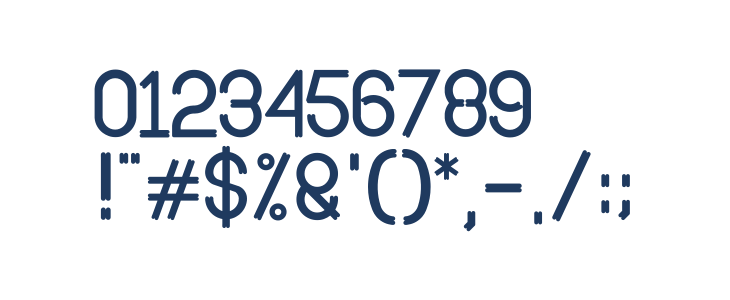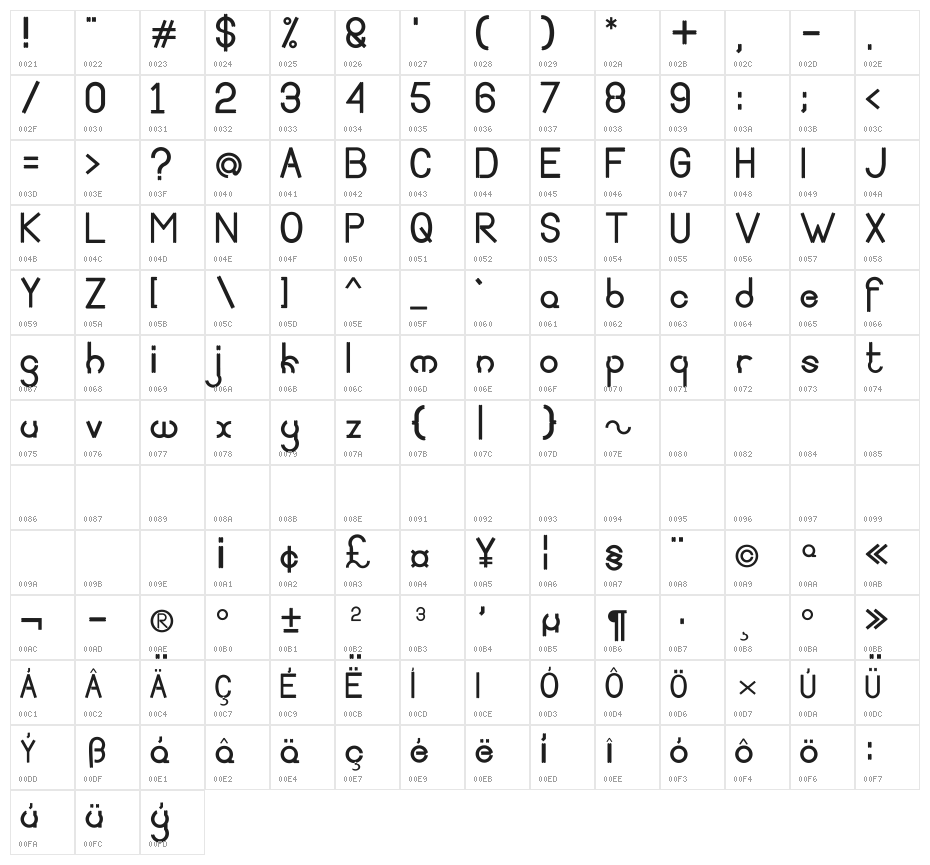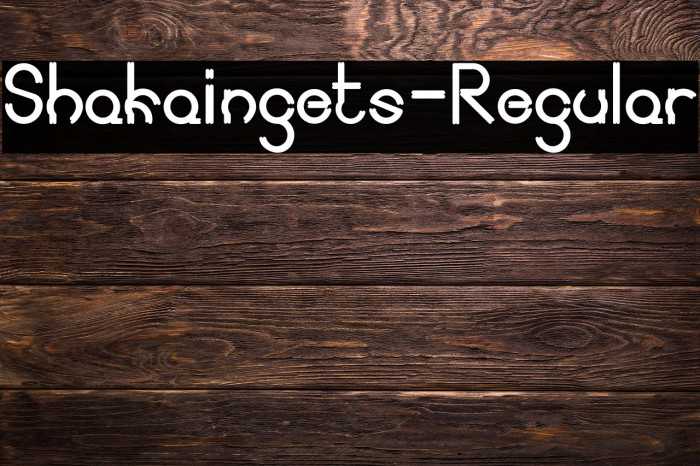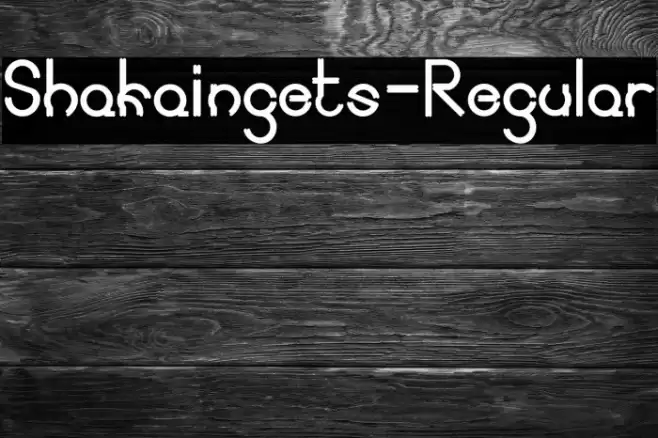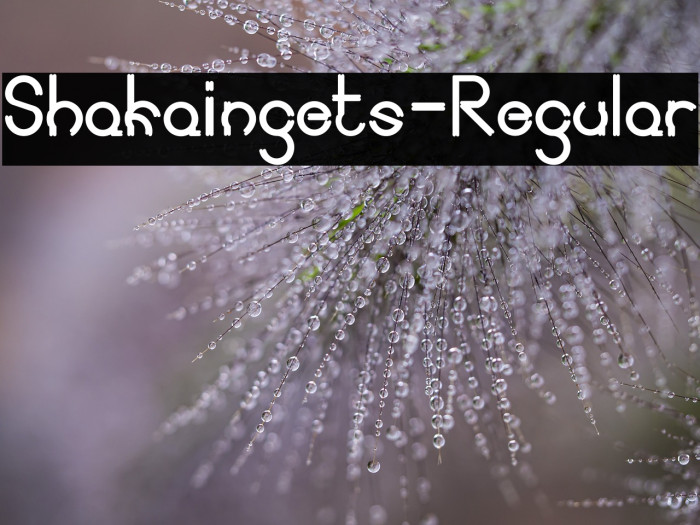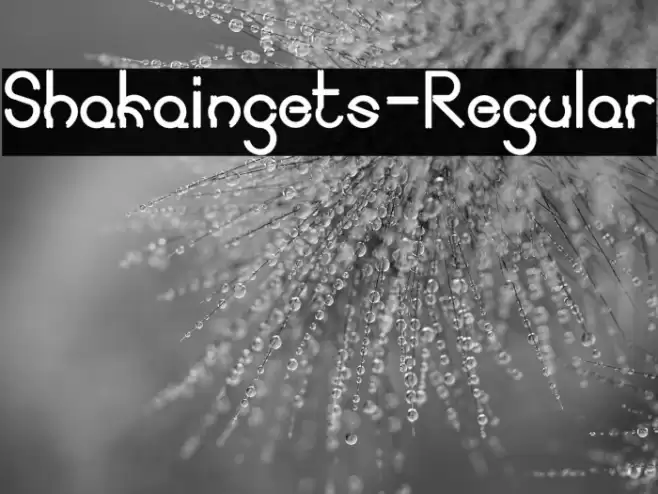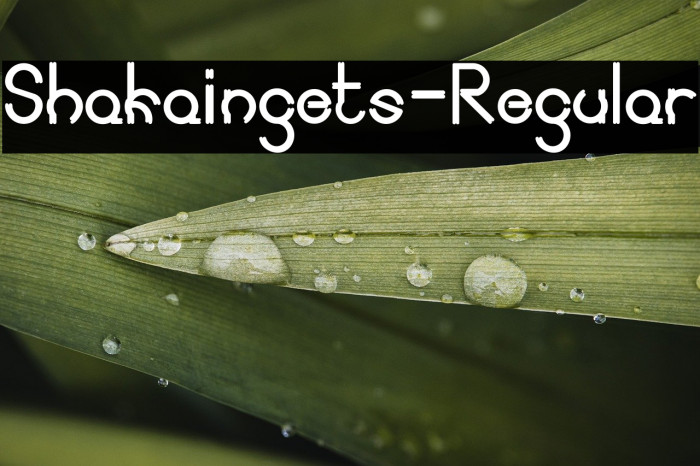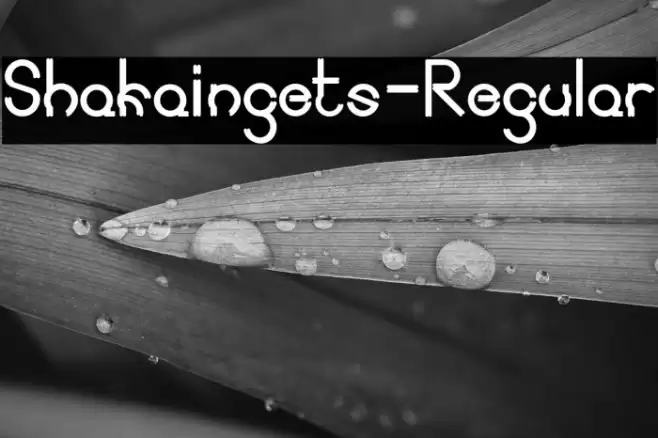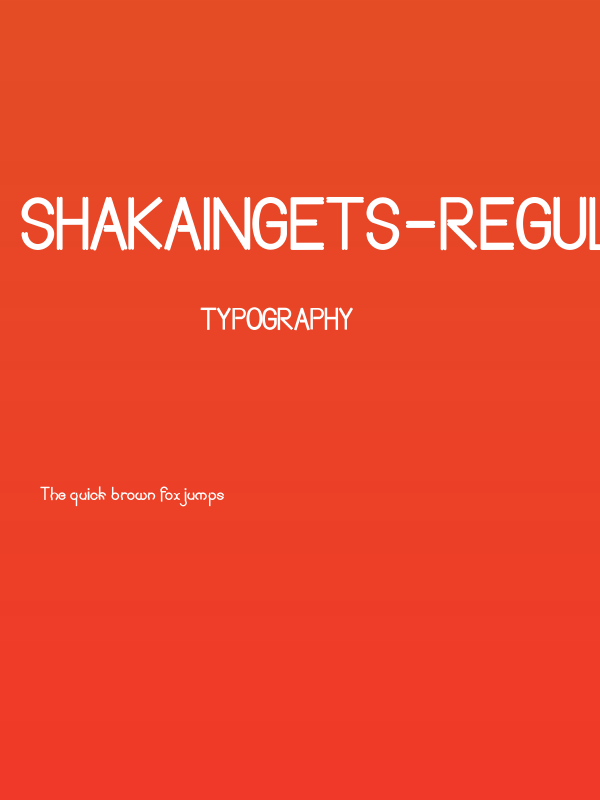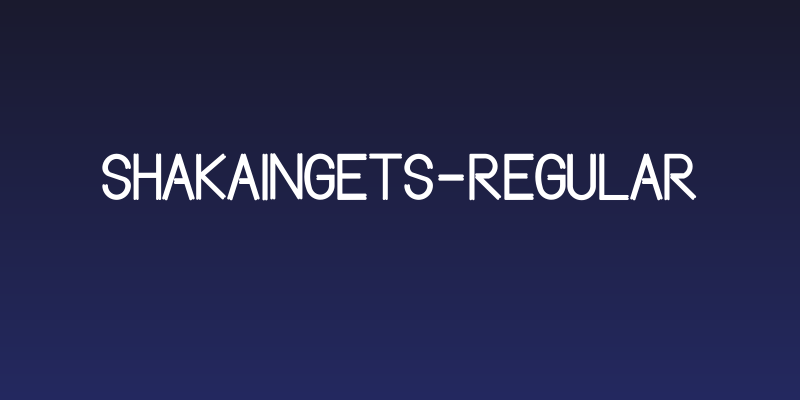
Shakaingets-Regular Font
Shakaingets-Regular Description
This font features a unique blend of geometric and modern design elements. The characters are formed with clean, bold lines and rounded edges, creating a futuristic and playful appearance. The uppercase letters are uniform in height, while the lowercase letters maintain a consistent baseline, adding to the font's readability. The numerals are distinct and align well with the overall style, making them suitable for various applications. Special characters are designed with the same attention to detail, ensuring they complement the alphabetic characters seamlessly. The font's overall aesthetic is both contemporary and versatile, making it ideal for creative projects.
| Use Case | Logos, Headlines, Digital Media |
| Proposed Projects | Ideal for branding, advertising, digital media, and creative design projects that require a modern and playful touch. |